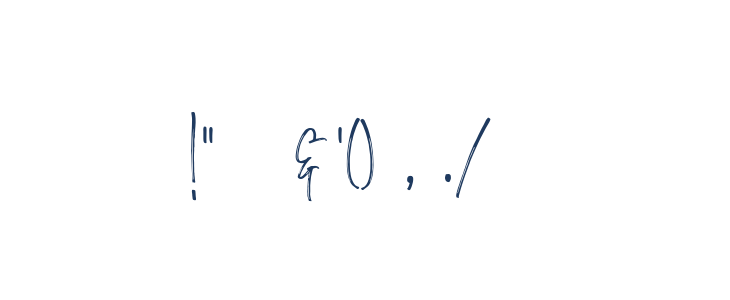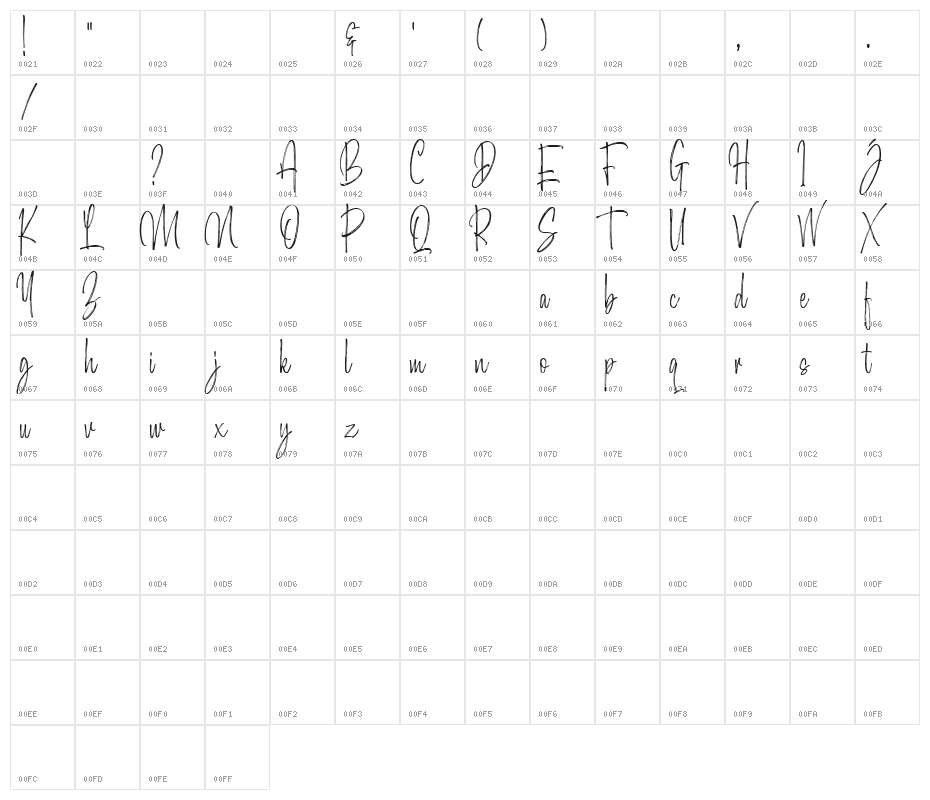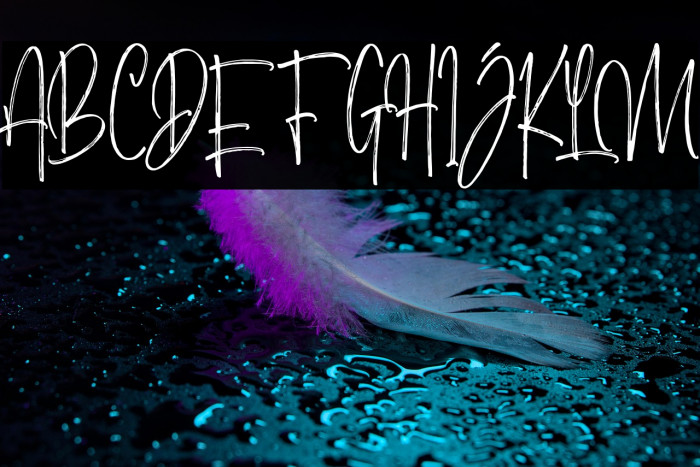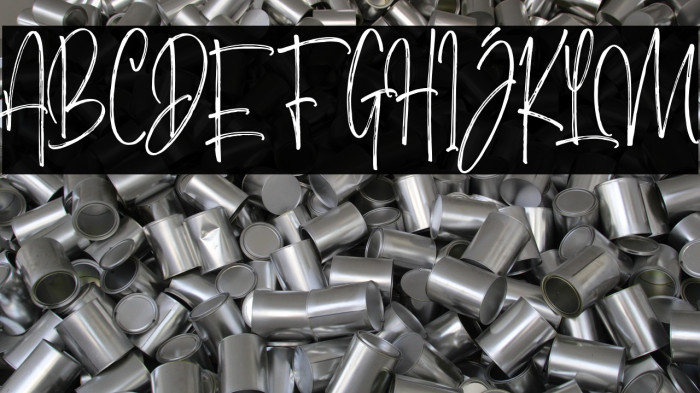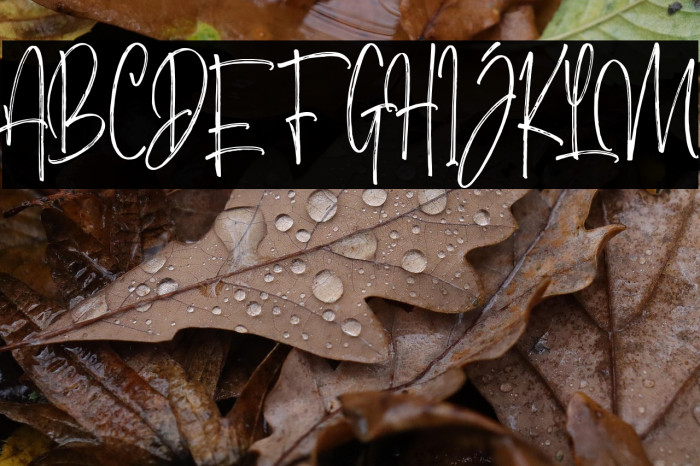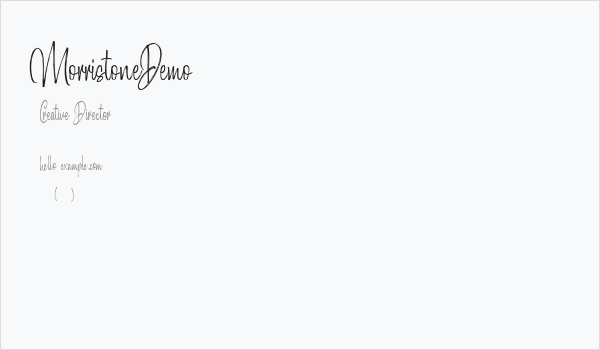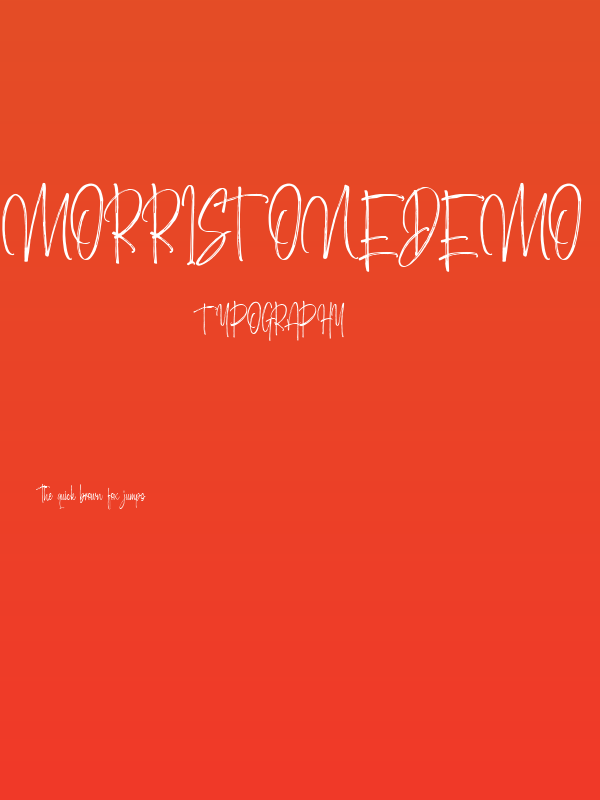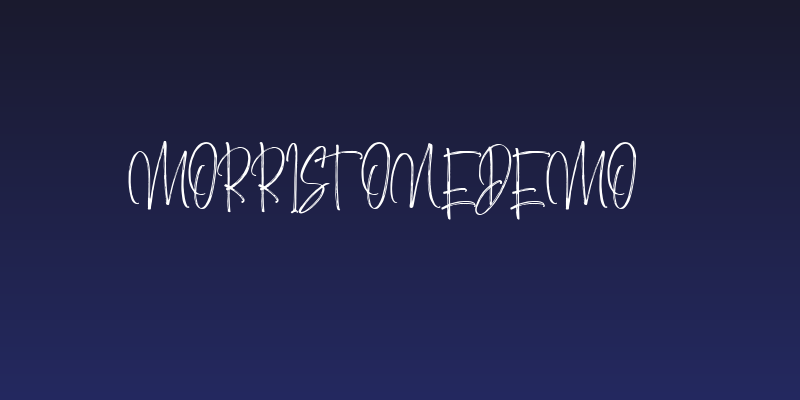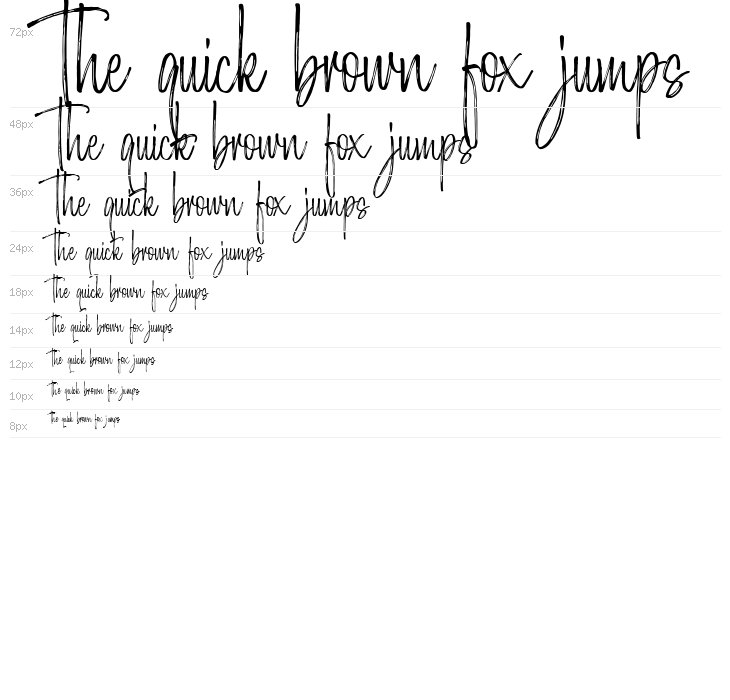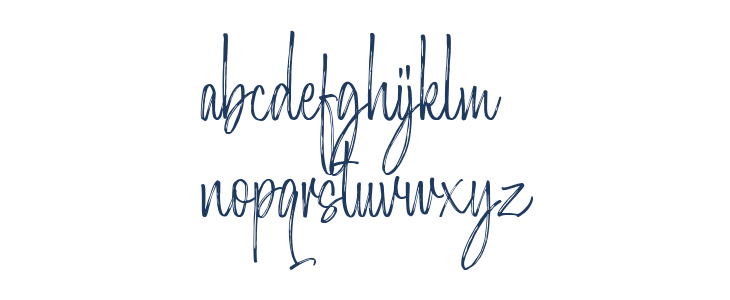
MorristoneDemo Font
MorristoneDemo Description
This font features a playful and artistic handwritten style with a unique flair. The uppercase letters exhibit tall, narrow forms with a slight slant, giving them an elegant yet casual appearance. The lowercase letters maintain a consistent flow, enhancing the handwritten feel. The strokes are varied, with some letters having loops and swirls that add character and charm. The numbers and special characters follow the same whimsical style, making them suitable for creative projects. Overall, this font exudes a sense of individuality and creativity, perfect for adding a personal touch to any design.
| Proposed Projects | Ideal for invitations, greeting cards, personal branding, and creative projects requiring a personal touch. |